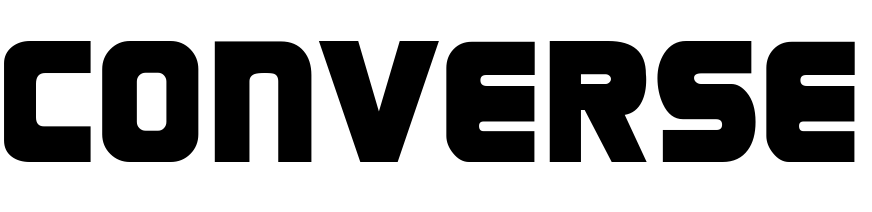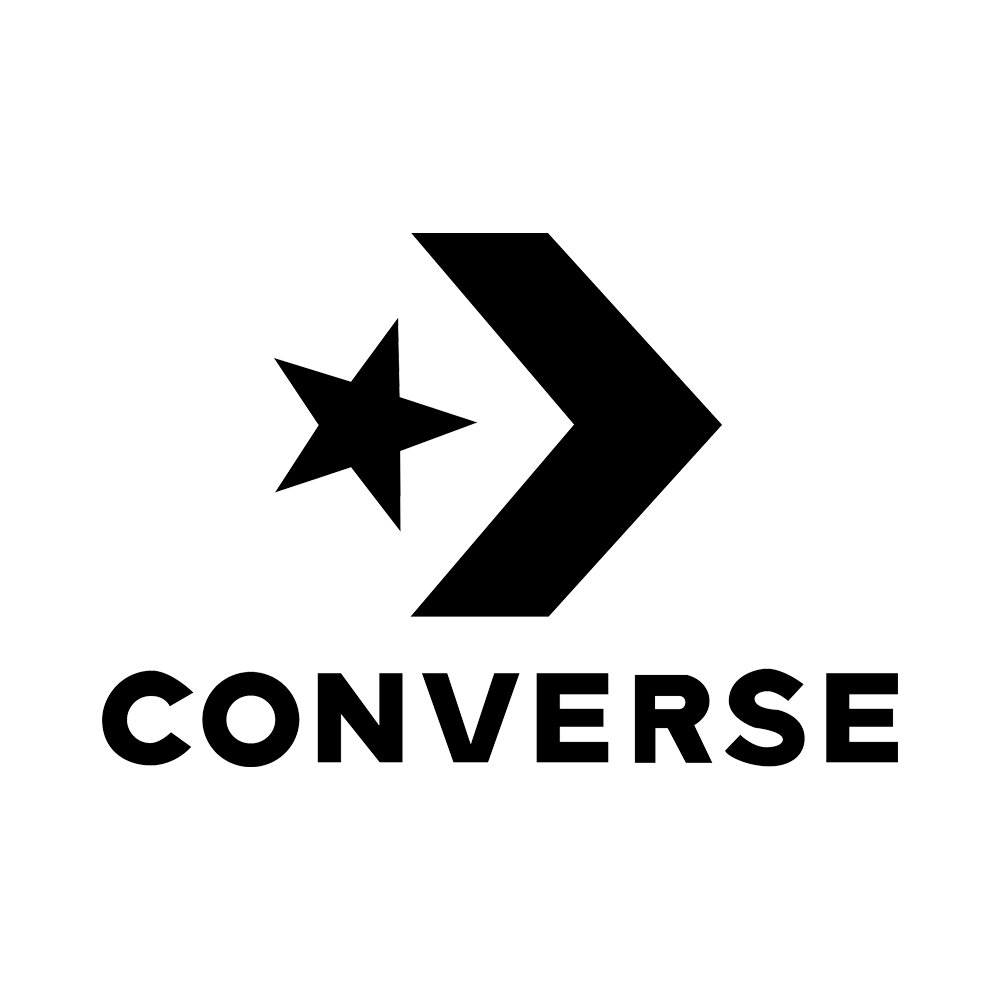
Converse Font
ApparelConverse is a footwear and apparel company that was founded in 1908 by Marquis Mills Converse in Malden, Massachusetts, United States. It is best known for its Chuck Taylor All-Star sneakers, which were first introduced in 1917 and became an iconic part of popular culture. A star enclosed in a circle with the word CONVERSE written beneath it makes up the Converse logo.